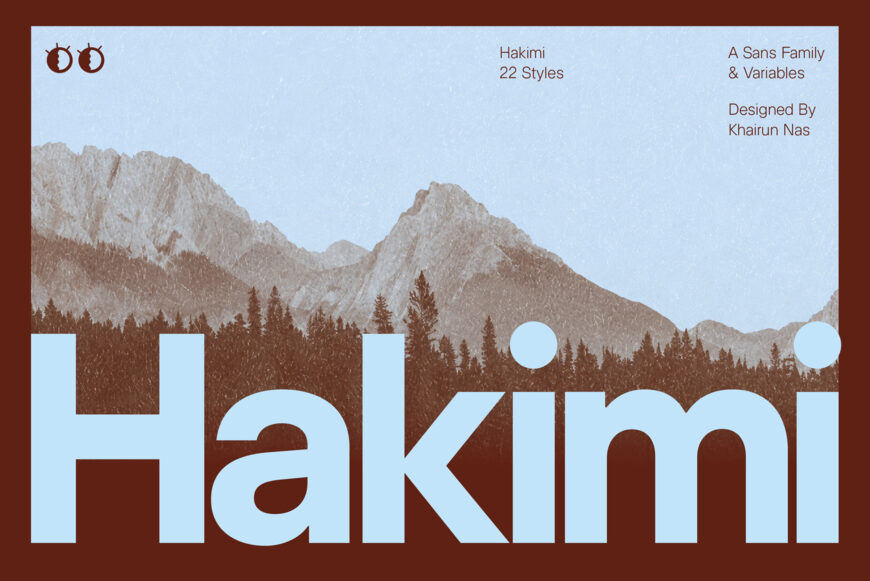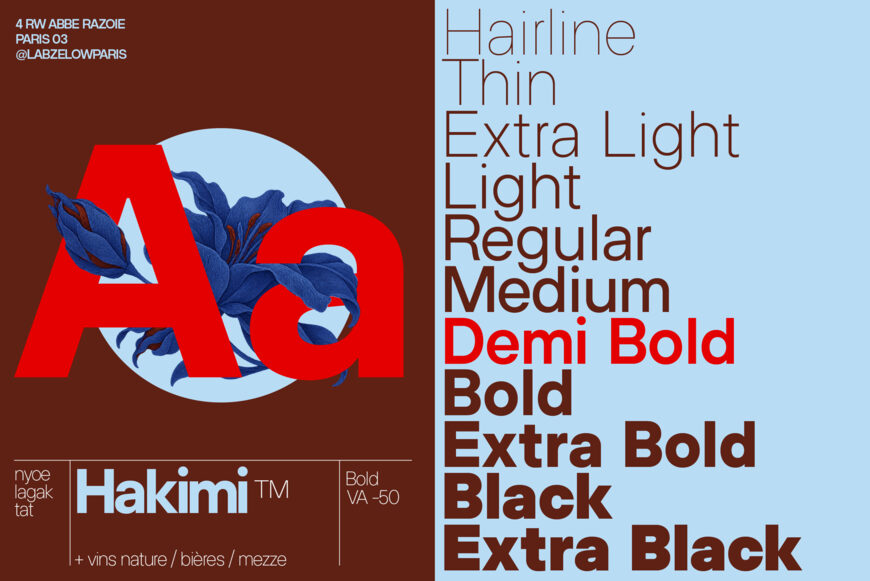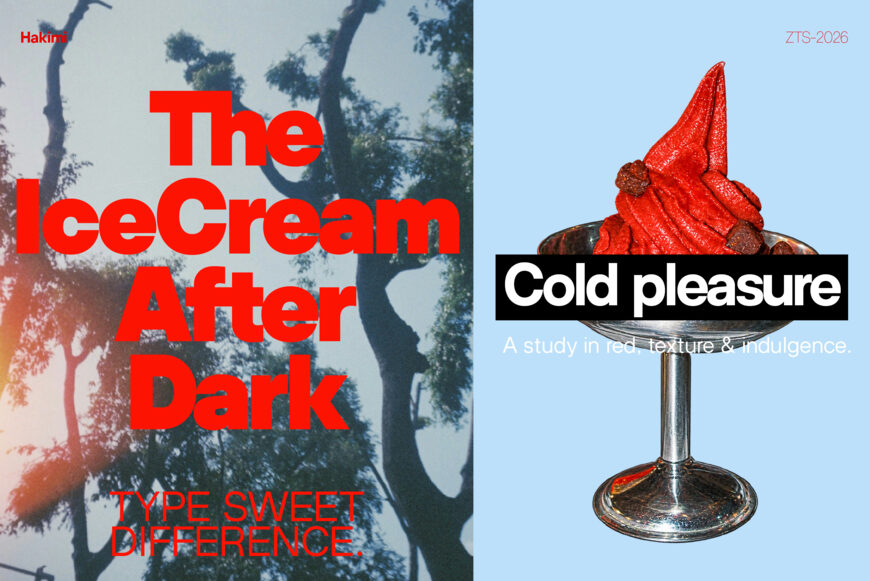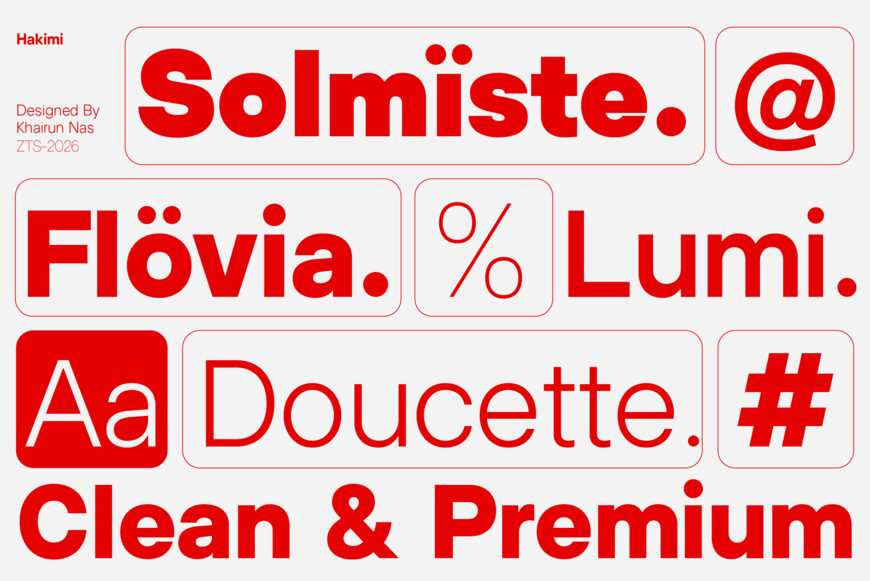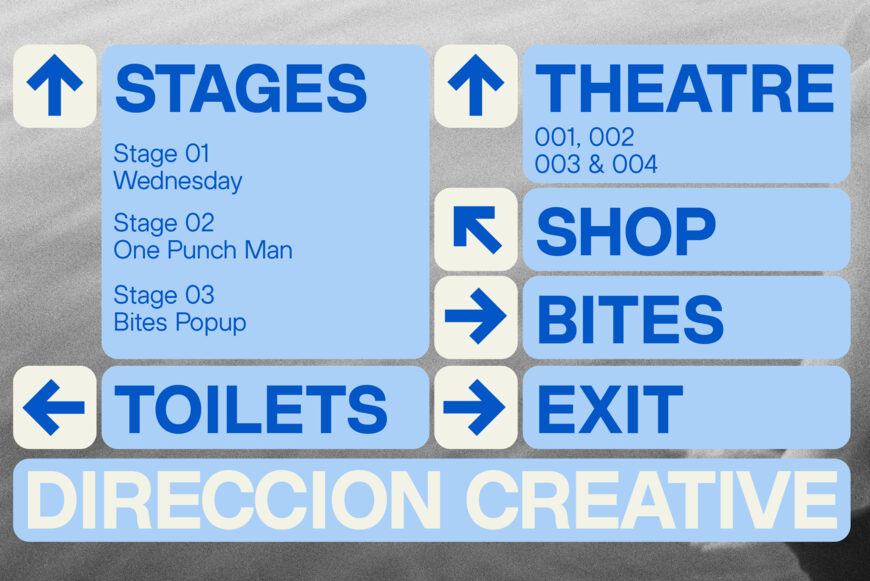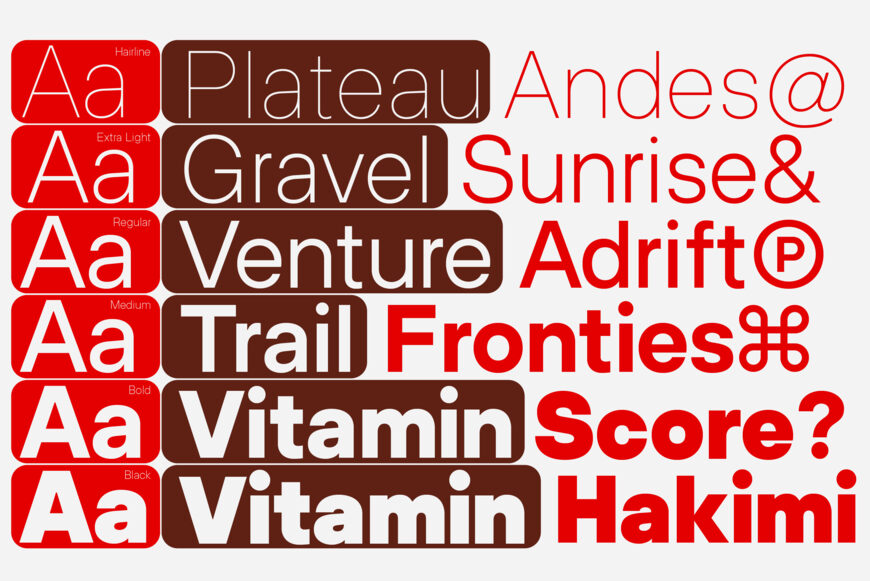
ZT Hakimi is a clean, balanced sans-serif built for straightforward, versatile communication. The family holds a neutral, well-proportioned structure from Hairline to ExtraBlack, keeping letterforms consistent and readable across the full weight range rather than shifting character as it gets heavier or lighter.
The family spans eleven weights in both upright and italic, for 22 styles total, alongside two variable font files covering the full weight range. Glyph coverage totals 600 characters across the Latin set, with support for old-style, tabular, and tabular old-style figures, case-sensitive forms, ordinals, slashed zero, fractions, subscript and superscript, and an extended currency set.